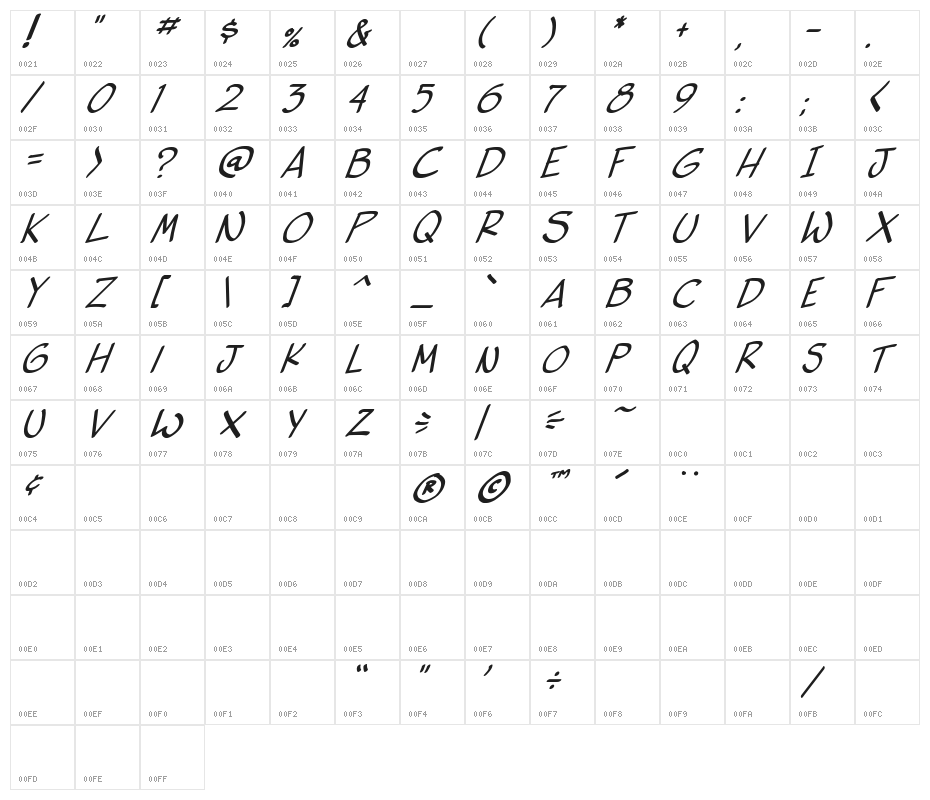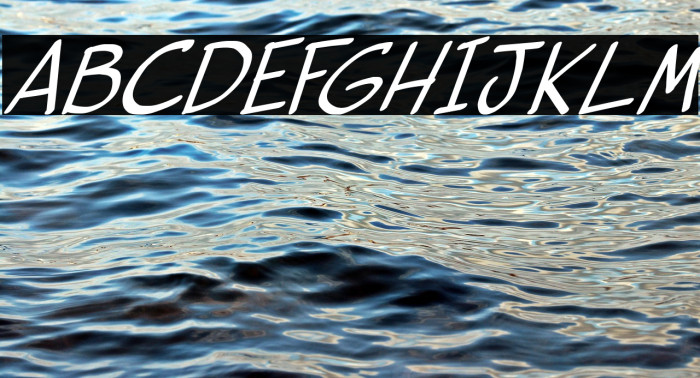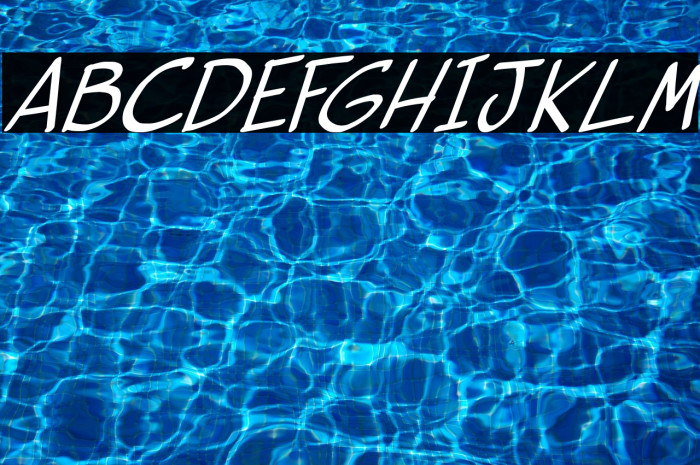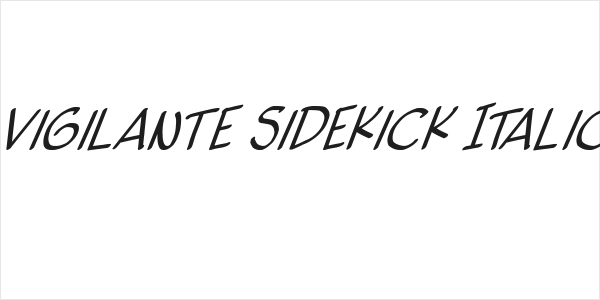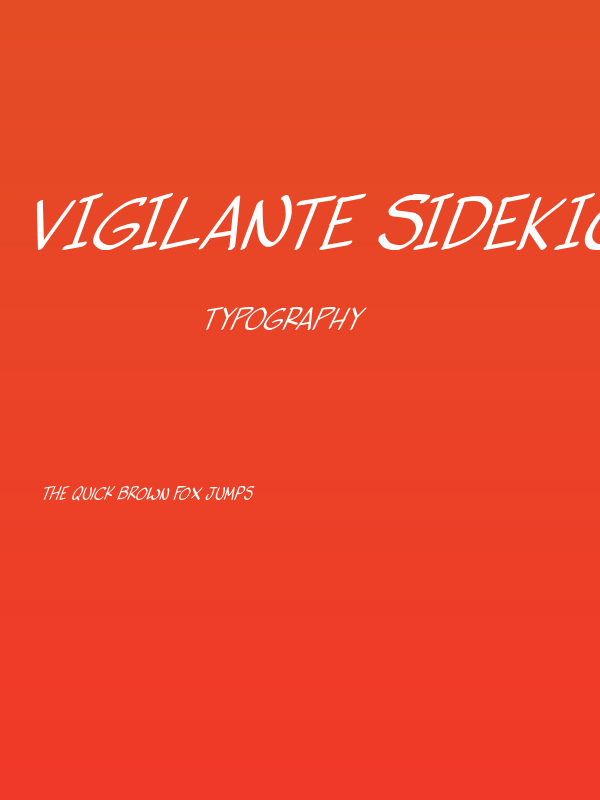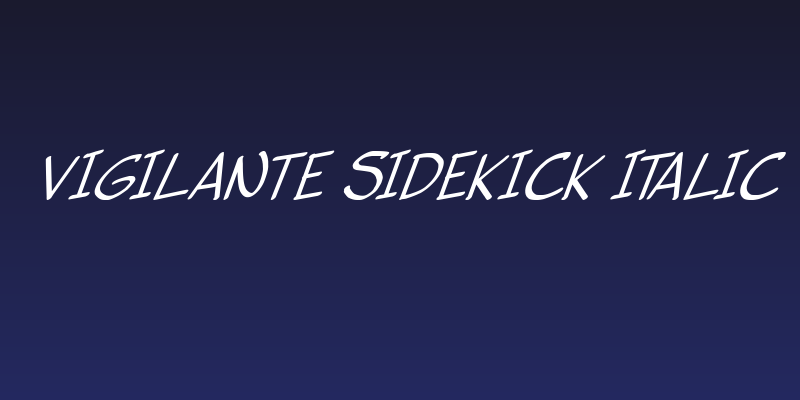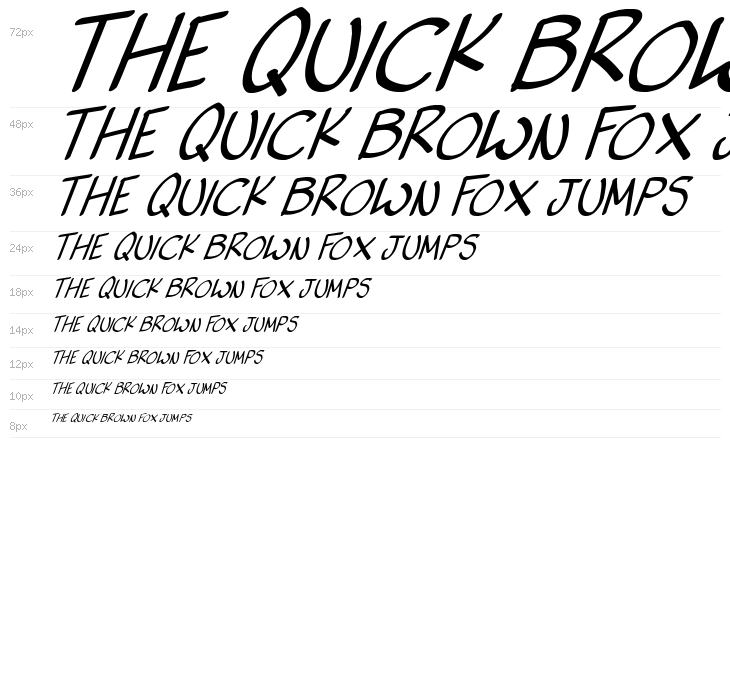
vigilante sidekick Italic Font
vigilante sidekick Italic Description
This font features a dynamic and energetic style with a handwritten appearance. The characters are slightly slanted, giving it an italicized look that enhances its fluidity and movement. The strokes are smooth and consistent, with a medium weight that provides good readability while maintaining a casual and informal tone. The uppercase and lowercase letters are well-balanced, and the numbers are clear and distinct. Special characters are included, adding versatility to its use. The overall design is modern and expressive, suitable for projects that require a personal touch.
| Proposed Projects | Ideal for greeting cards, invitations, personal branding, and creative projects that require a personal and informal touch. |